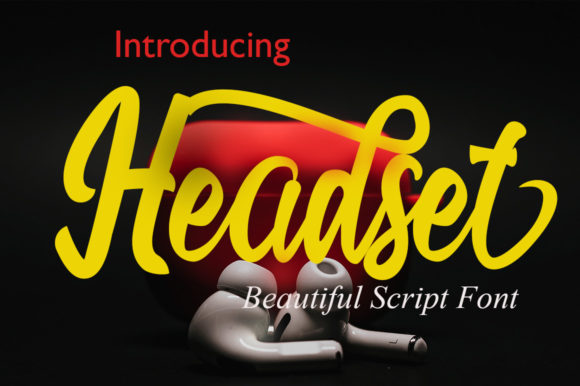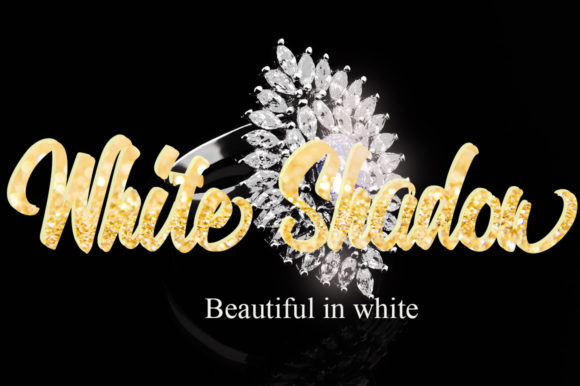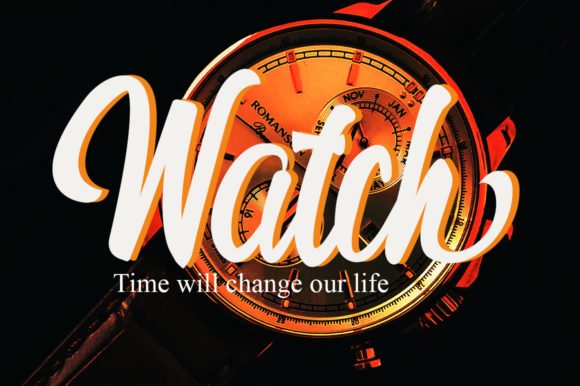
Introduction to Headset Font
Headset is a cursive and adaptable script font.
Its genuine and delicate characters make this font a masterpiece Add it confidently to your projects, and you will love the results.
Key Features of Headset Font
Why Choose Headset Font?
Headset Font offers exceptional quality and versatility, making it a valuable addition to your design toolkit. Whether you’re creating for personal projects or commercial use, Headset Font delivers professional results.